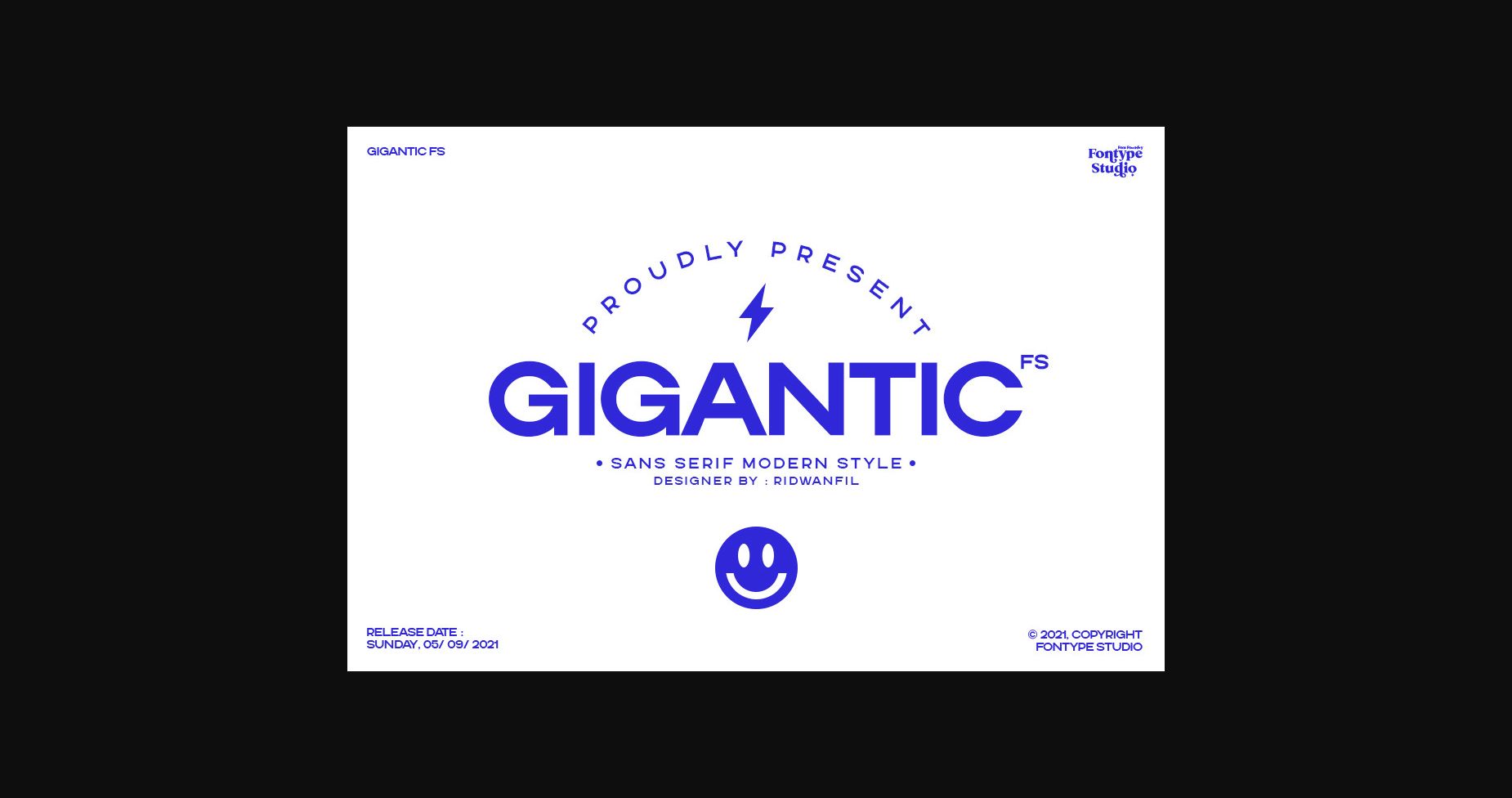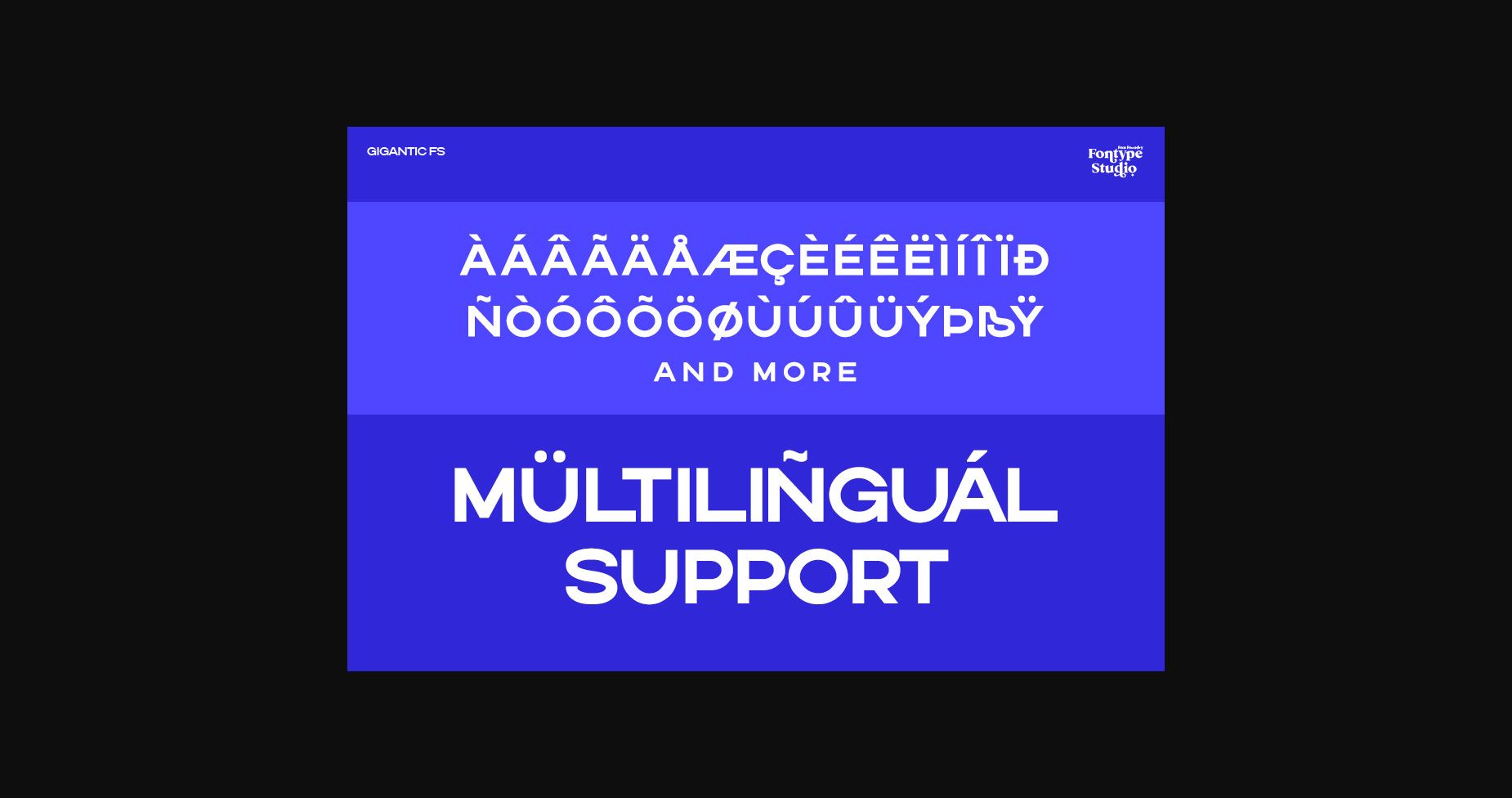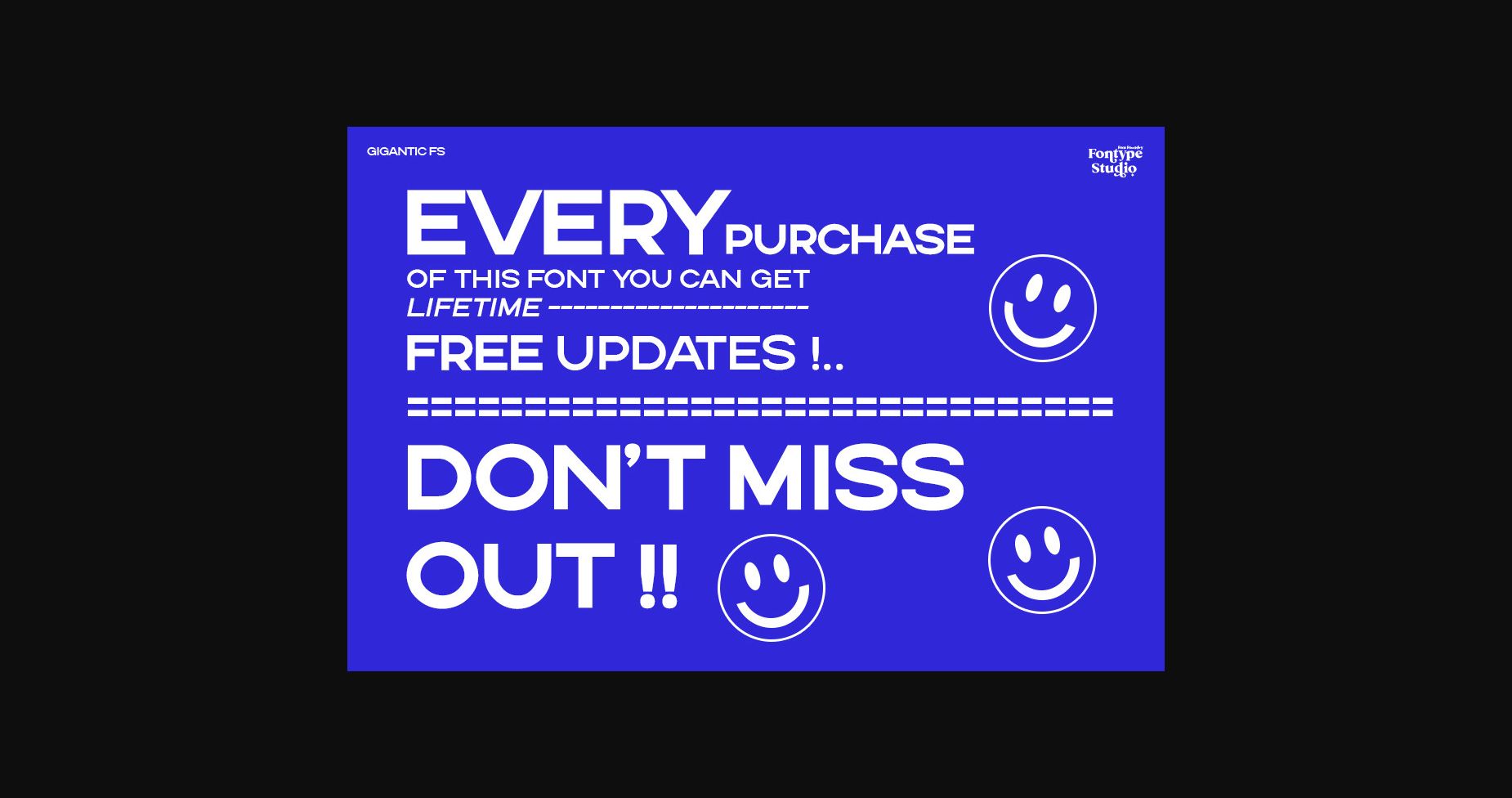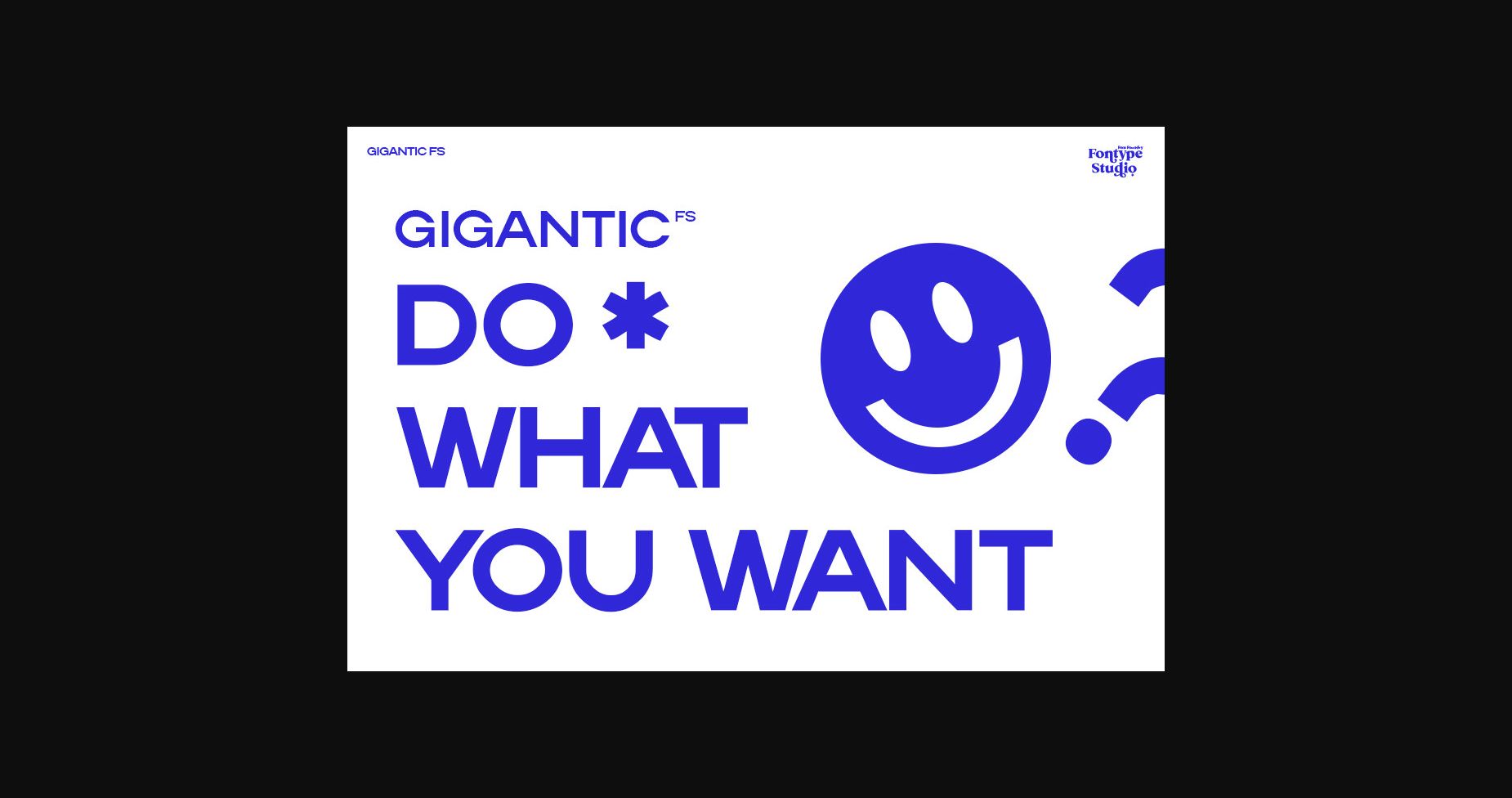
About Gigantic Font
Gigantic is a minimal and neat sans serif font. It can easily be matched to an incredibly large set of projects, so add it to your creative ideas and notice how it makes them stand out!